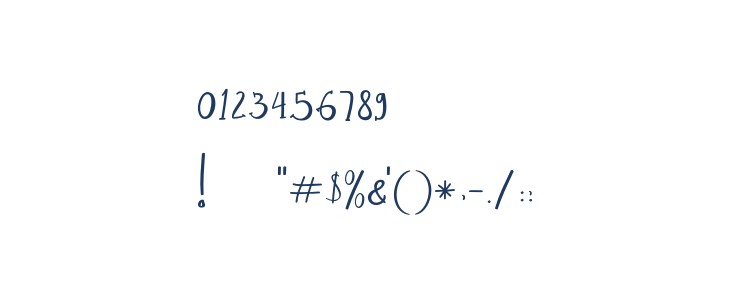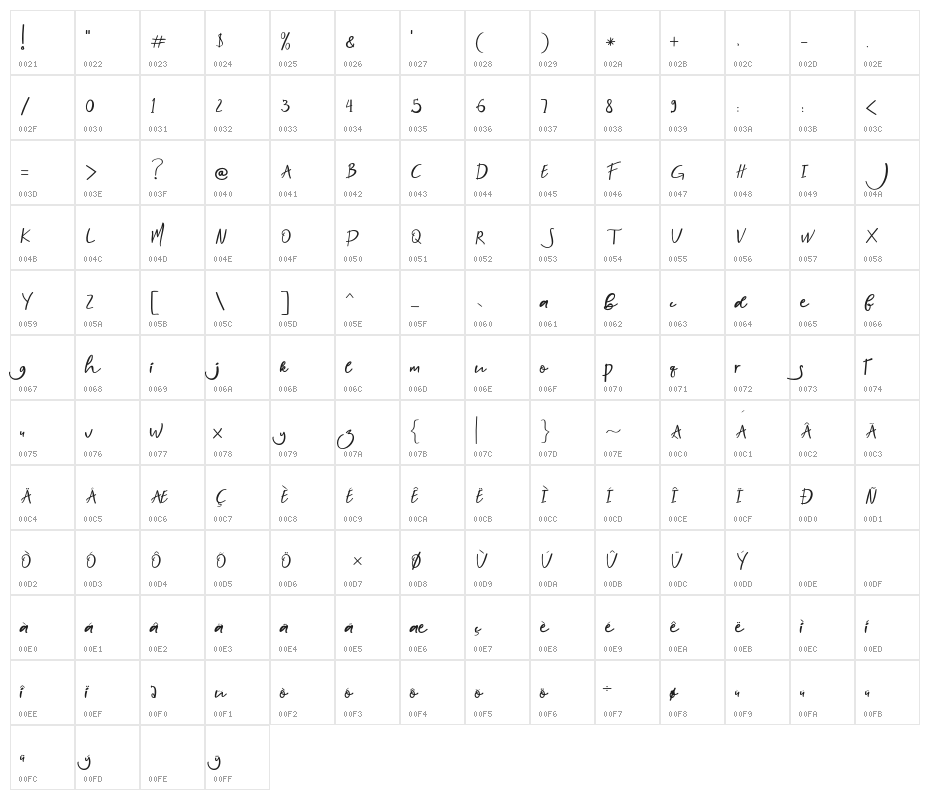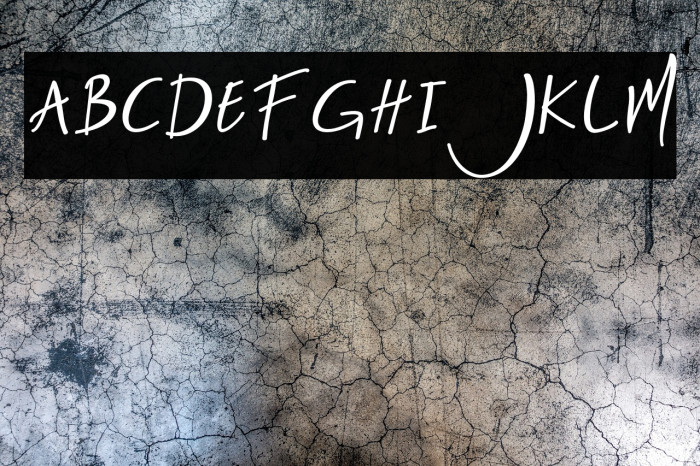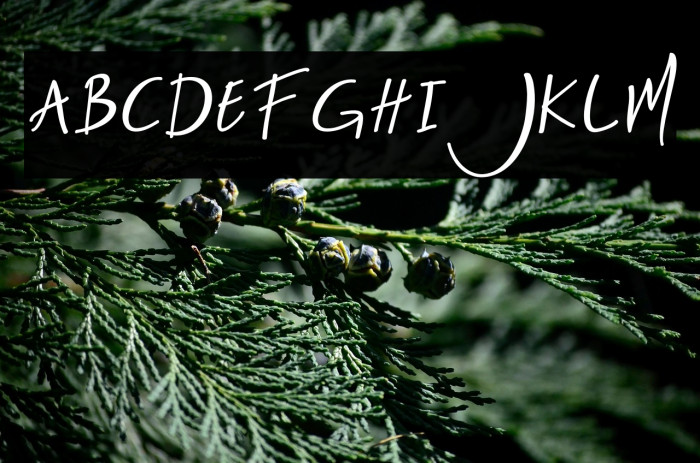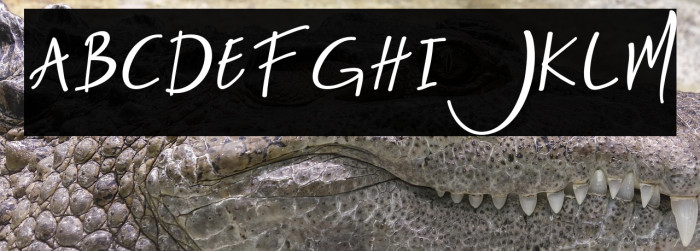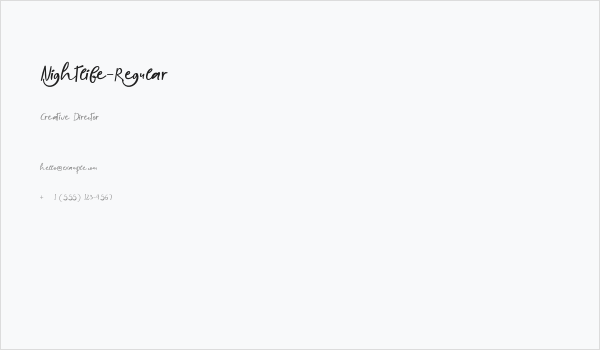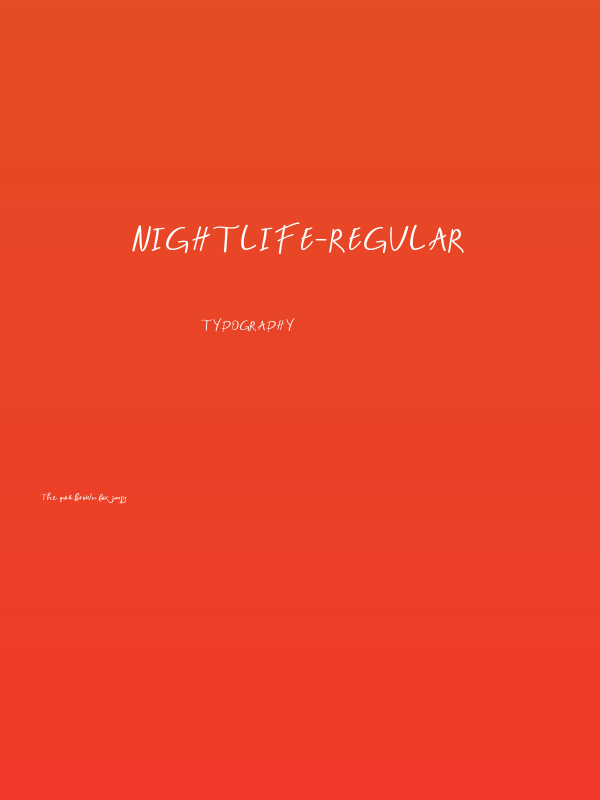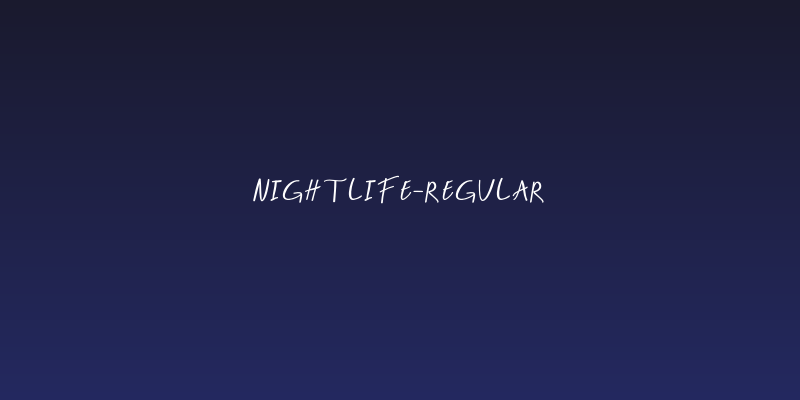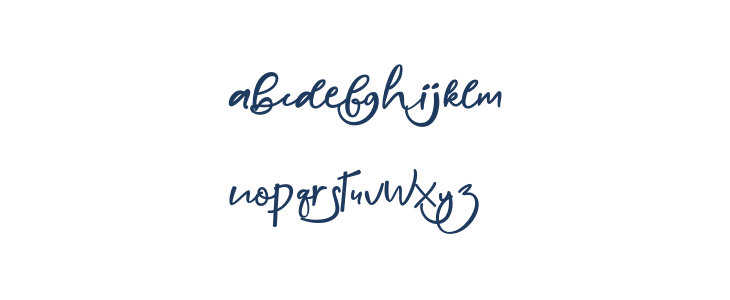
Nightlife-Regular Font
Nightlife-Regular Description
This font exudes a lively and energetic vibe, characterized by its handwritten style that combines elegance with a touch of playfulness. The uppercase letters are tall and slightly slanted, giving them a dynamic appearance, while the lowercase letters are more fluid and connected, enhancing the handwritten feel. The numbers and special characters maintain the same energetic style, ensuring consistency throughout. The strokes vary in thickness, adding a sense of movement and rhythm to the text. This font is perfect for projects that require a personal and informal touch, such as invitations, greeting cards, or creative branding.
| Proposed Projects | Ideal for invitations, greeting cards, creative branding, and personal projects. |